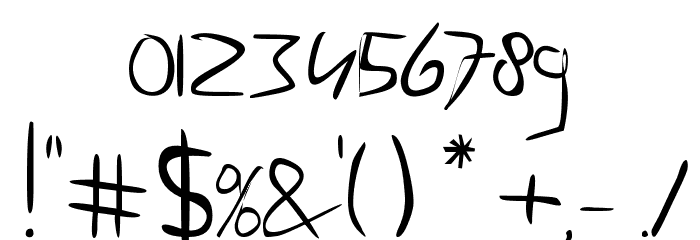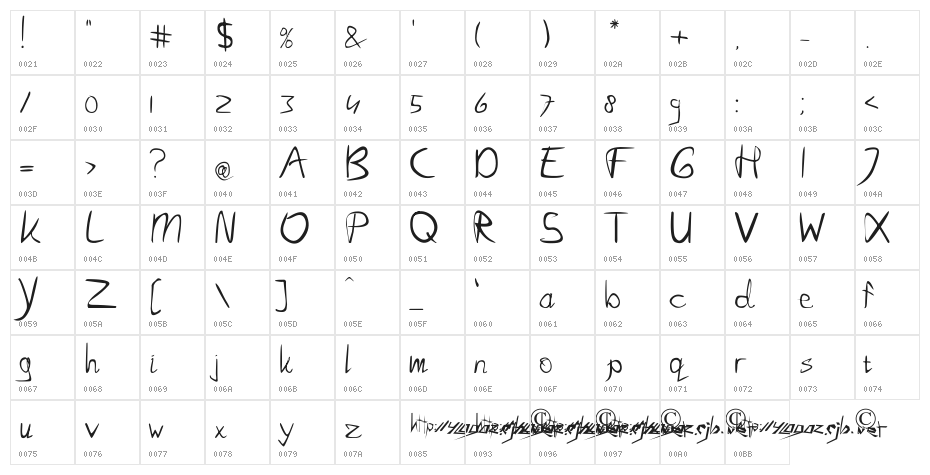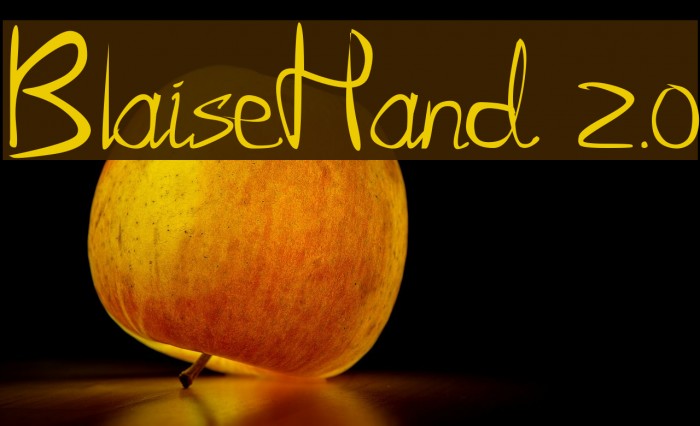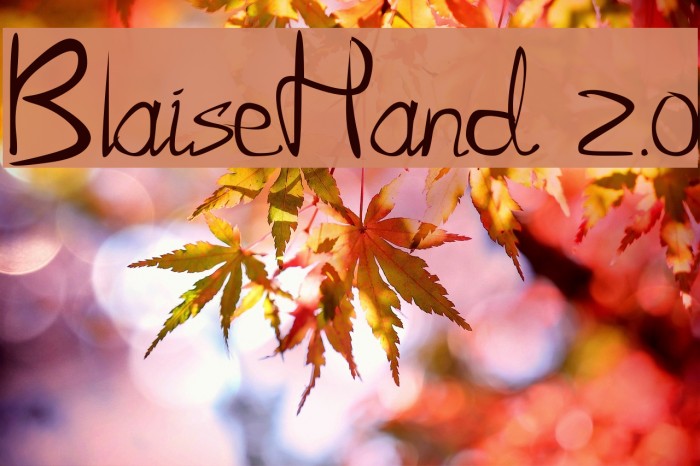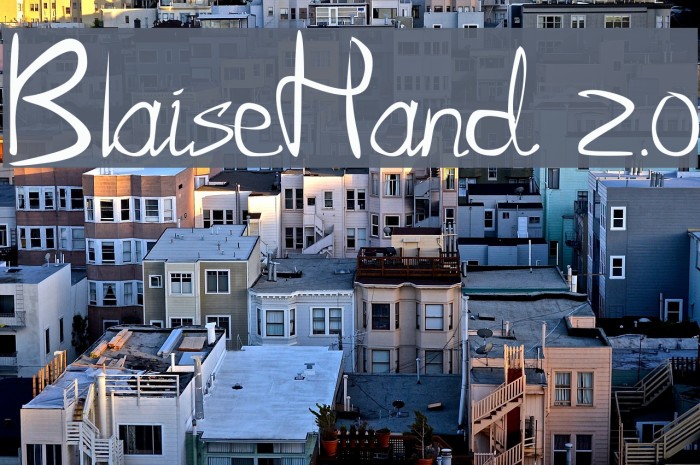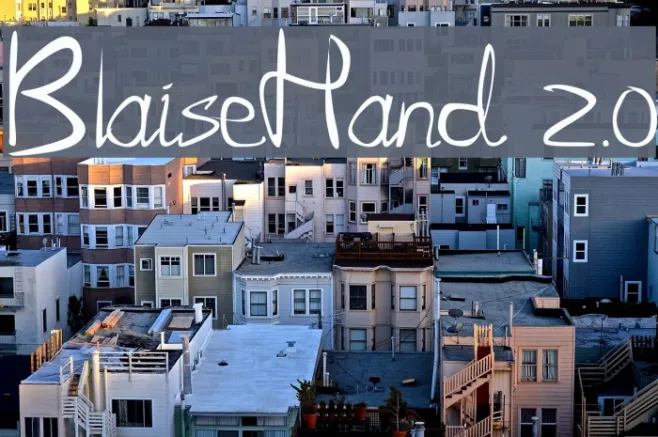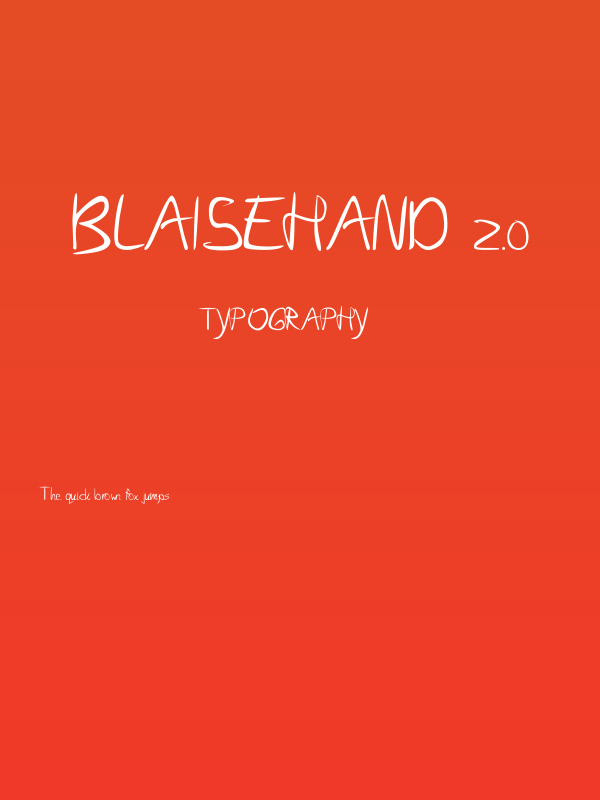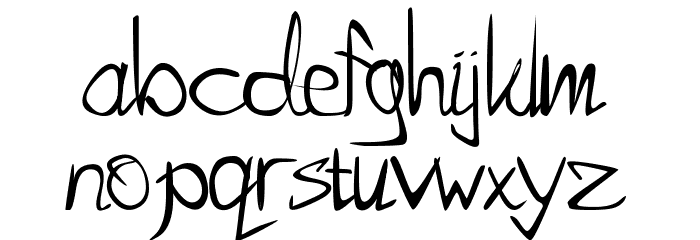
BlaiseHand 2.0 Font
BlaiseHand 2.0 Description
This font exhibits a unique handwritten style with a playful and artistic flair. The characters are slightly slanted, giving a dynamic and fluid appearance. The strokes vary in thickness, adding a sense of movement and energy. The uppercase letters are bold and expressive, while the lowercase letters maintain a consistent flow. Numbers and special characters follow the same lively design, making the font versatile for creative projects. The overall look is casual yet sophisticated, suitable for designs that require a personal touch.
| Proposed Projects | Ideal for greeting cards, invitations, artistic posters, and personal branding. |